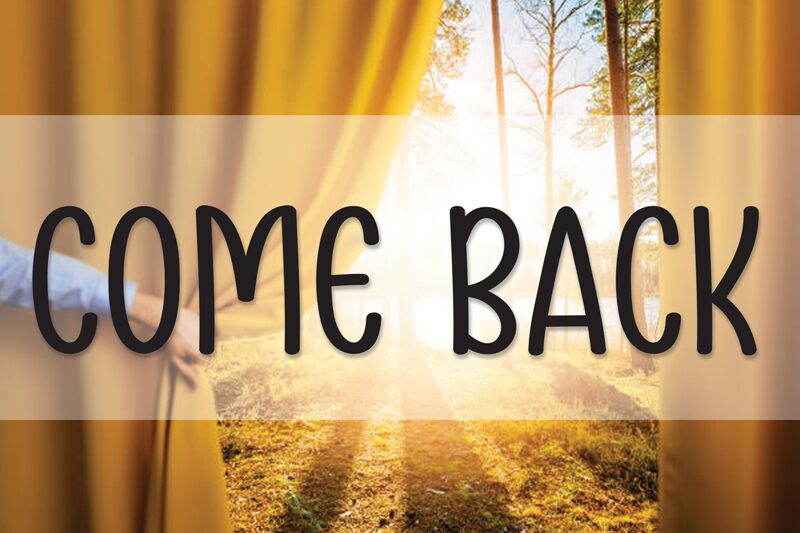
Come Back font is a sleek and modern script typeface designed by Andi Moz as a free font for personal use. Its casual, contemporary appearance is approachable, friendly, and informal. Versatile and warm, the font is inviting and easy to work with when designing either short snippets of text or longer full-length paragraphs.
The font is suitable for logotypes, magazine headings, website headers, movie posters, social media descriptions, product packaging, and much more. It may also work for designing invitations, greeting cards, wedding packages, or event booklets.
This is a sweet and friendly handwritten display font. Cute and fun, this font is ideal for crafting wedding invitations, cards, or any design that requires a playful touch.